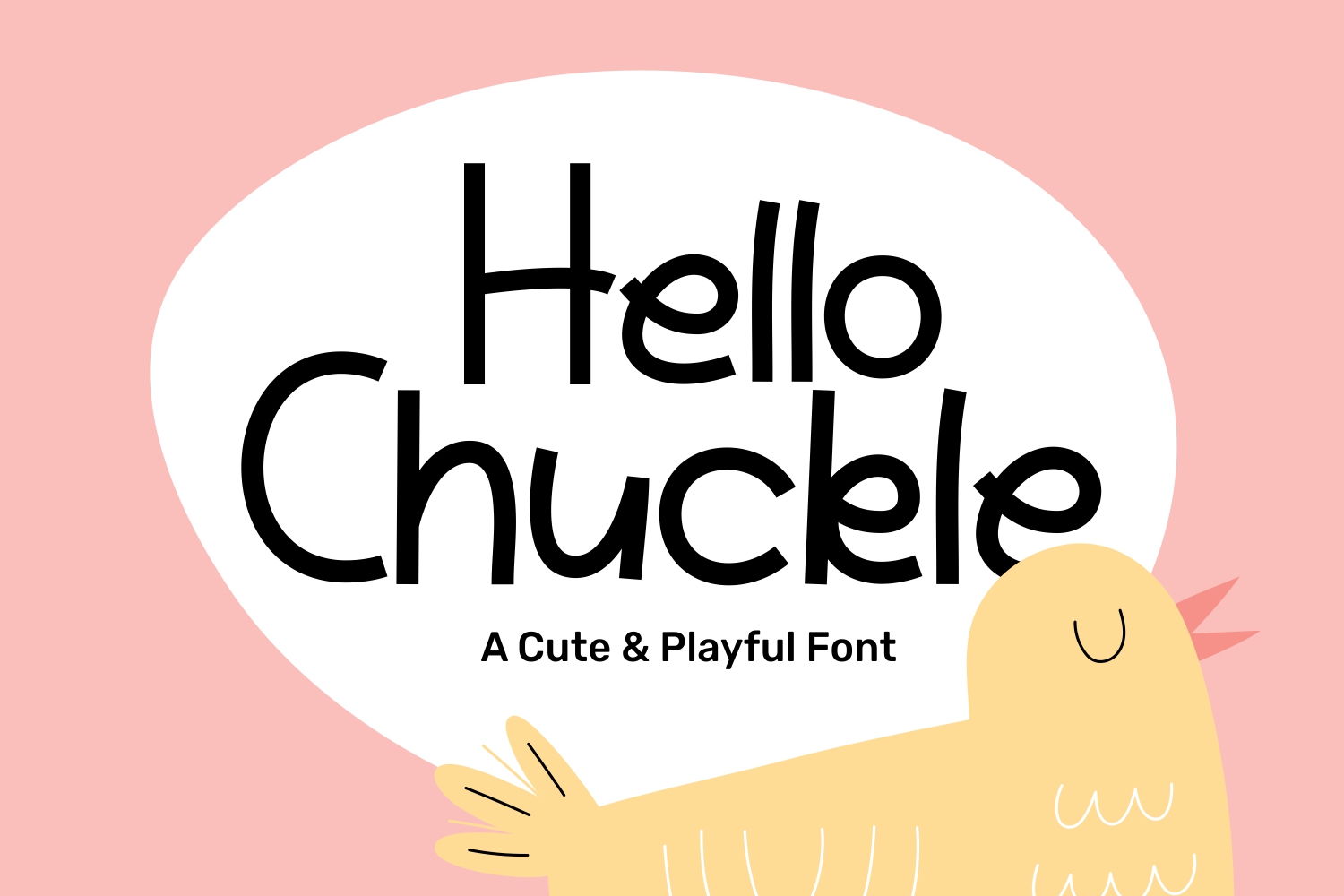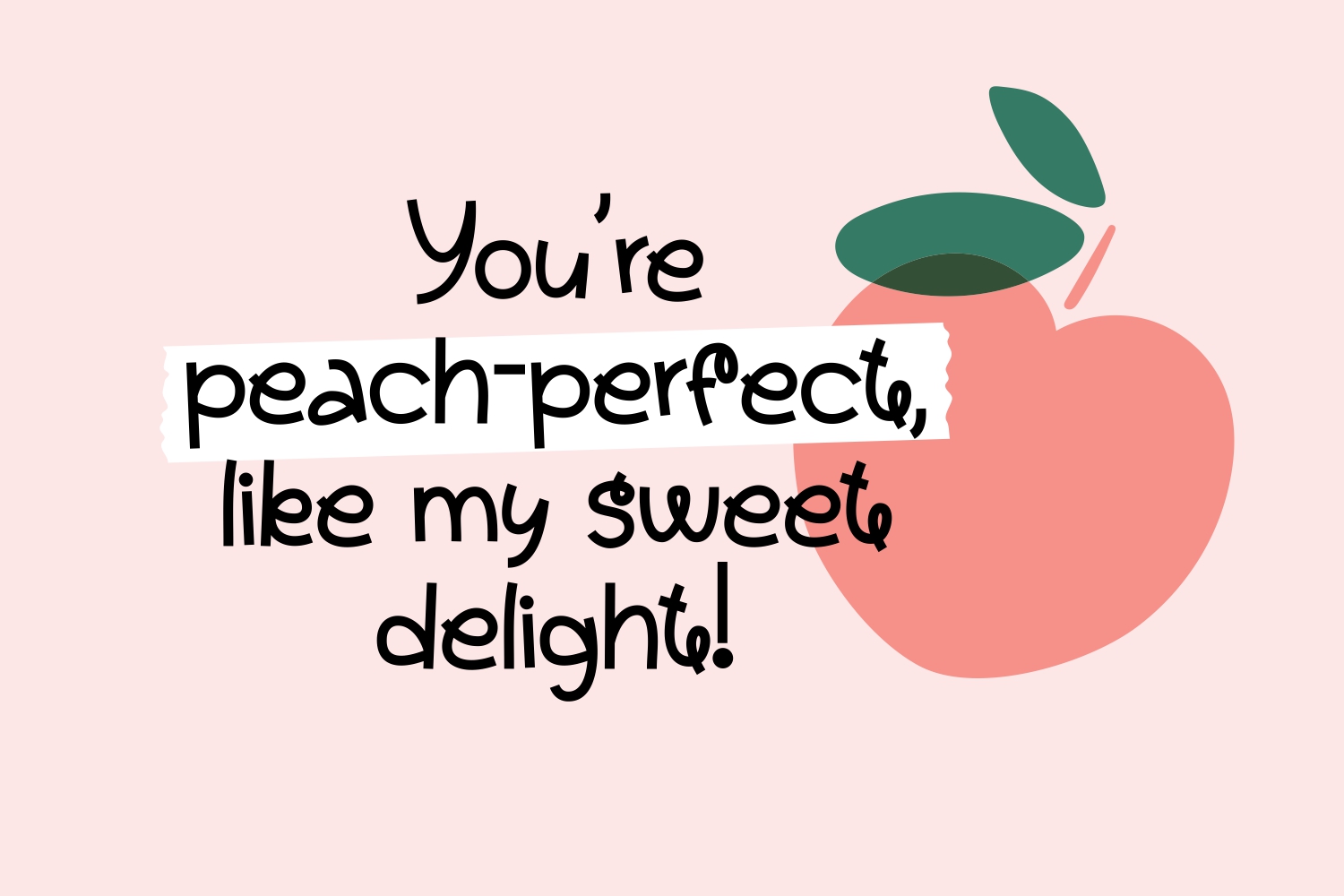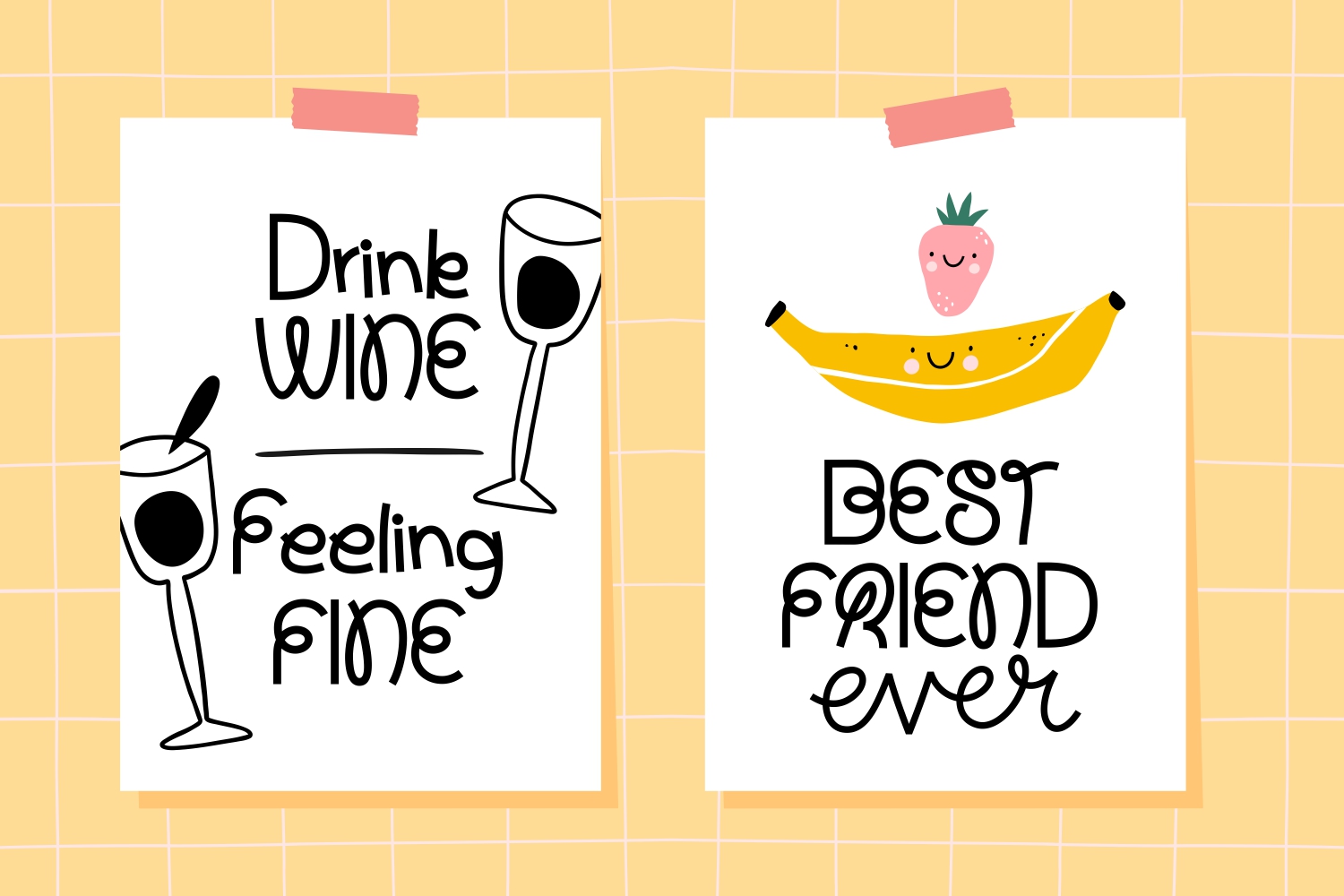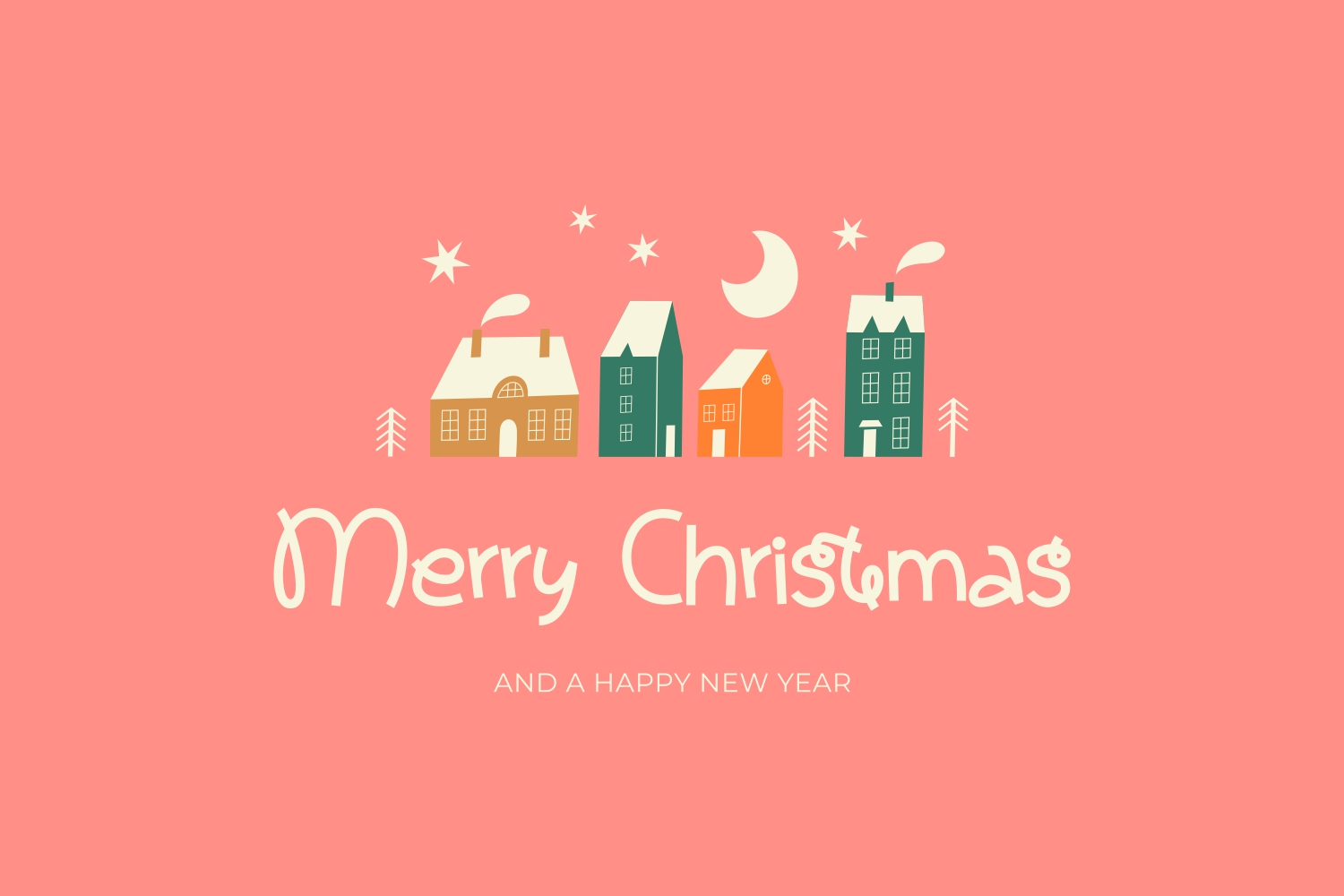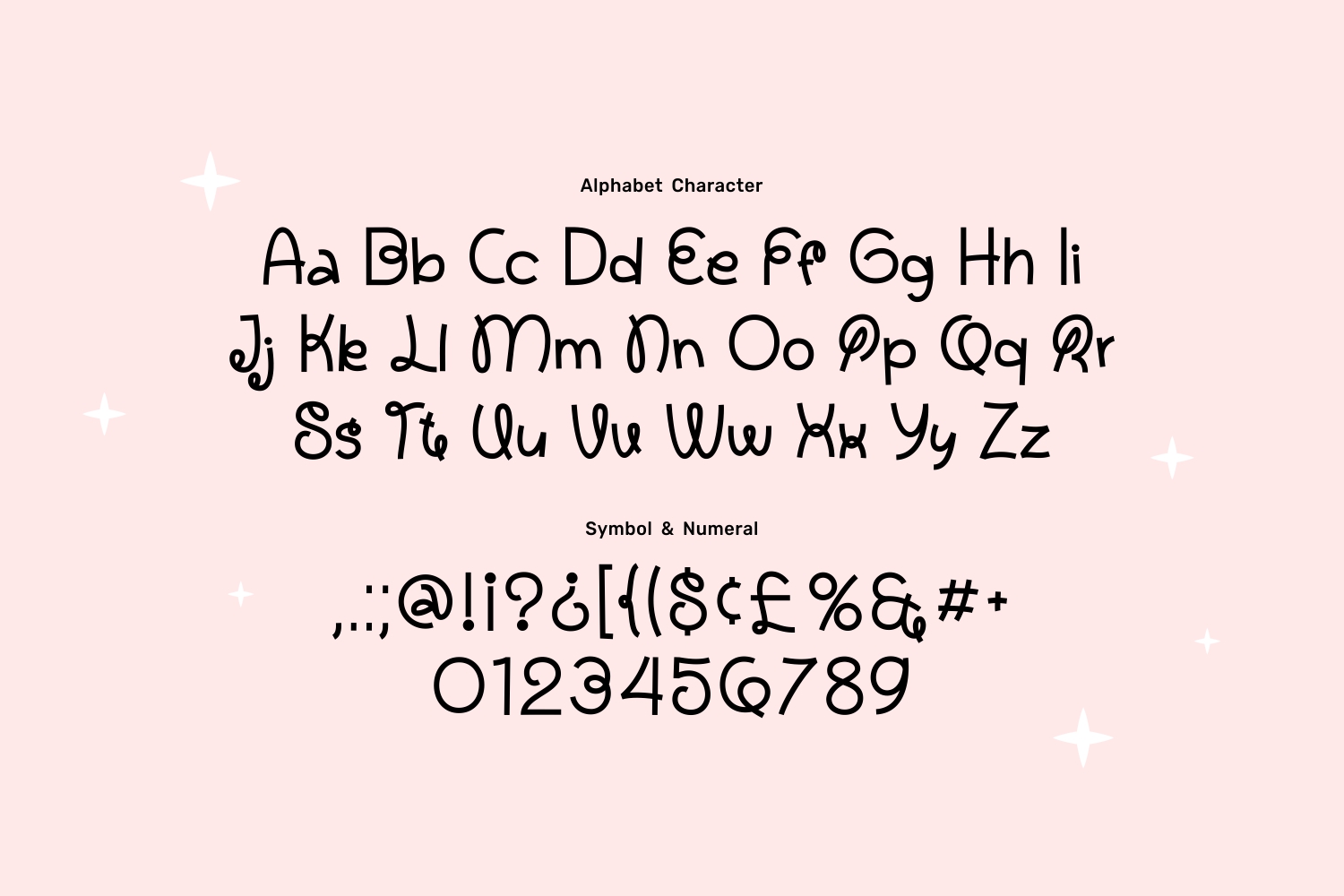
Hello Chuckle is a cute and playful font that radiates charm and positivity. Its quirky letterforms and smooth curves bring a whimsical touch to any project, making it perfect for designs that aim to spread joy and lightheartedness. This font effortlessly blends fun and readability, making it suitable for both short headlines and longer body text in creative contexts.
Whether you’re working on greeting cards, children’s books, product packaging, or cheerful social media posts, Hello Chuckle adds a delightful personality that captures attention. Its unique shapes and friendly vibe make it an excellent choice for brands and designers who want to convey warmth, creativity, and a dash of humor.